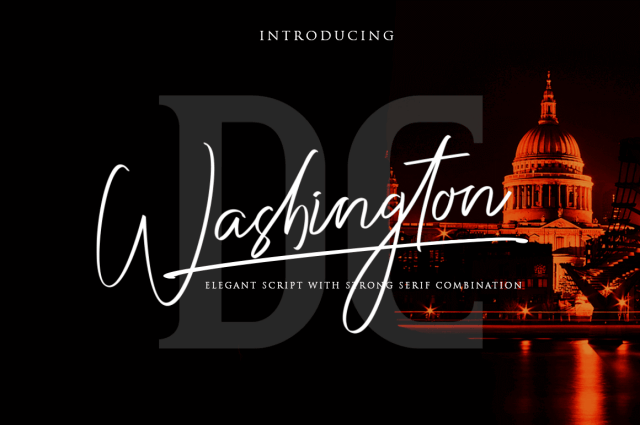
Washington DC is a new handmade script and serif font that combines for a truly elegant feel. Featuring uppercase and lowercase letters, numerals and punctuation, there are also plenty of ligatures and multilingual support to offer a wide range of flexibility in your work. It’s the perfect choice for everything from branding to quotes.